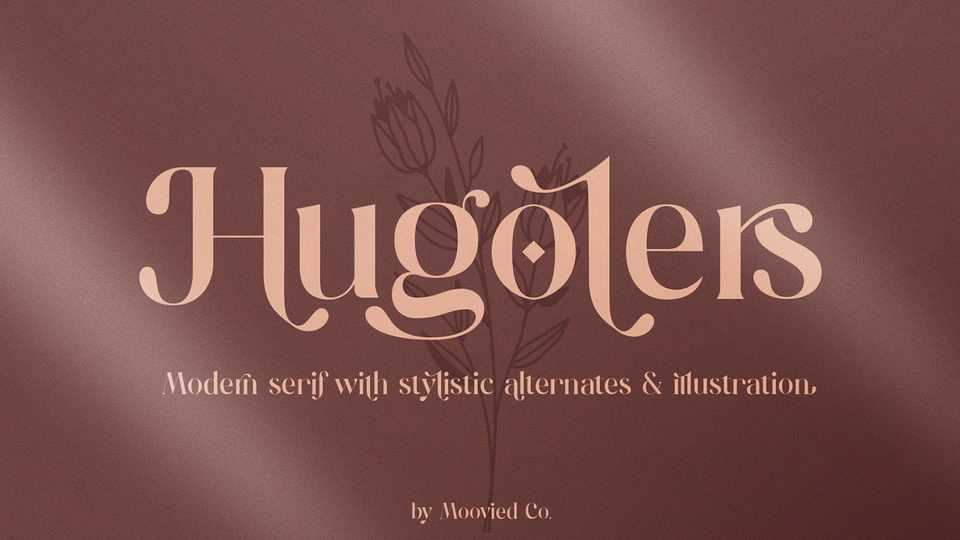
Download Hugolers Stylish font, a modern-style serif typeface with beautiful alternatives and ligatures. Hugolers Stylish is perfect to create stunning logos, quotes, posts, blog posts. branding projects, magazine imagery, wedding invitations and more.
Designer: Haris Purnama Putra